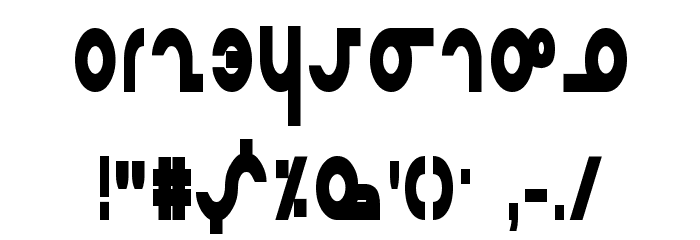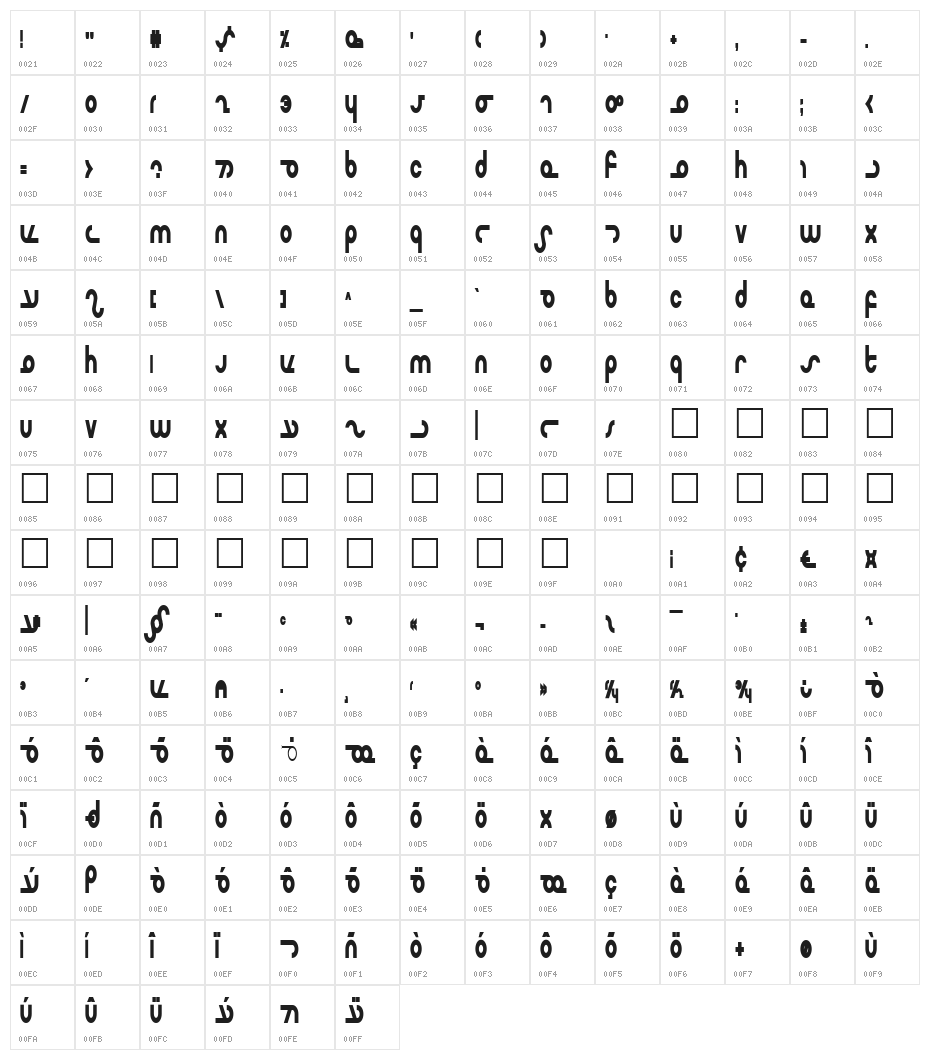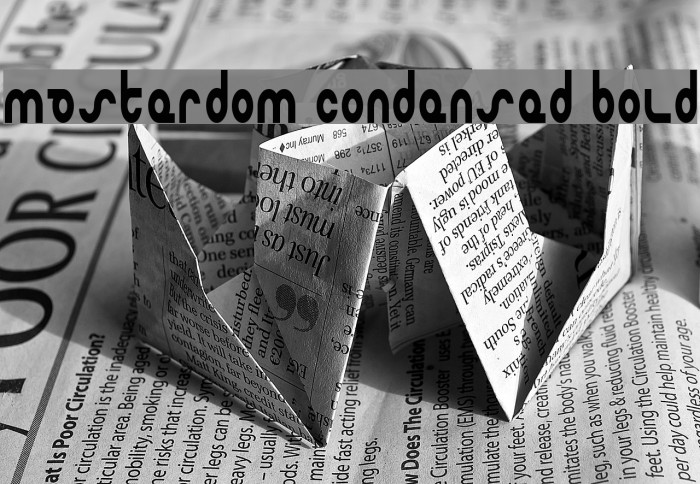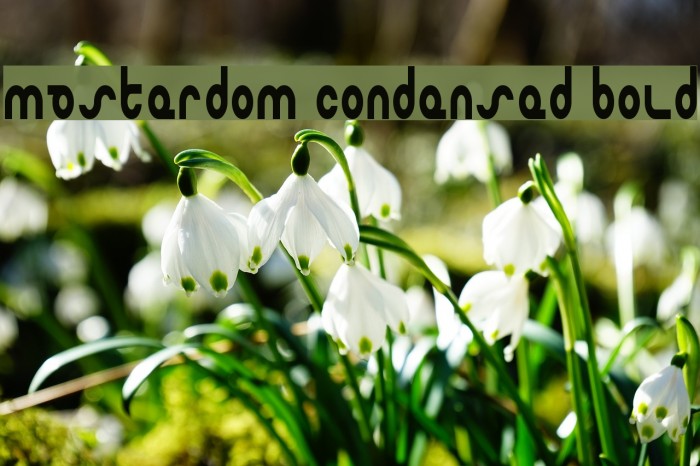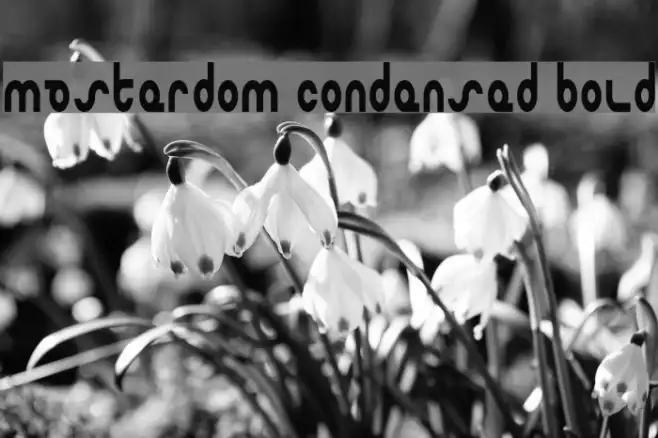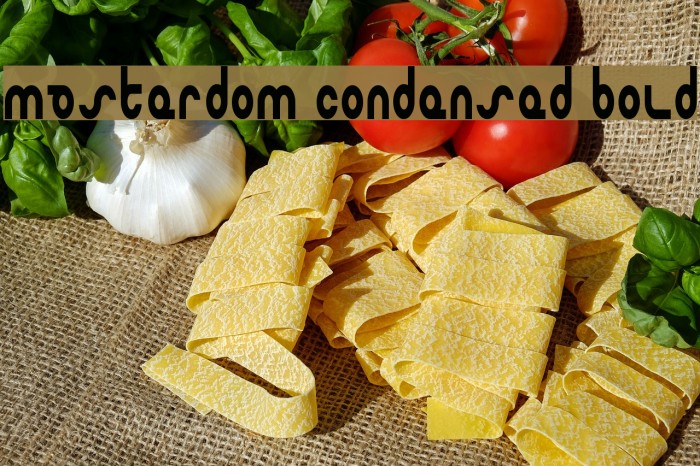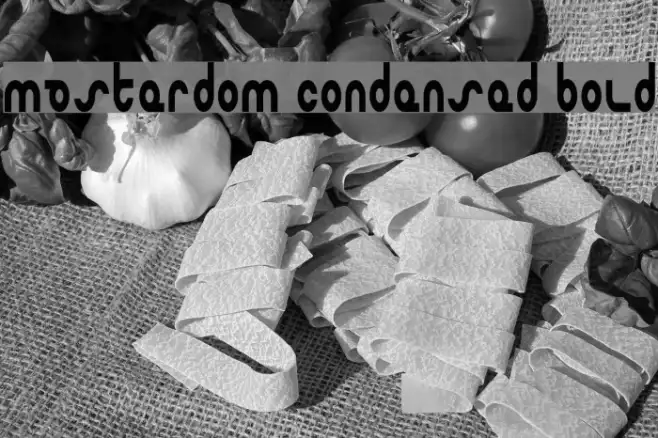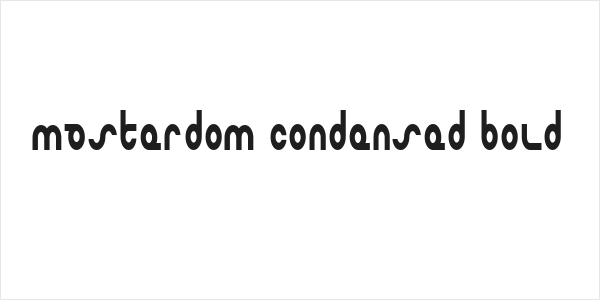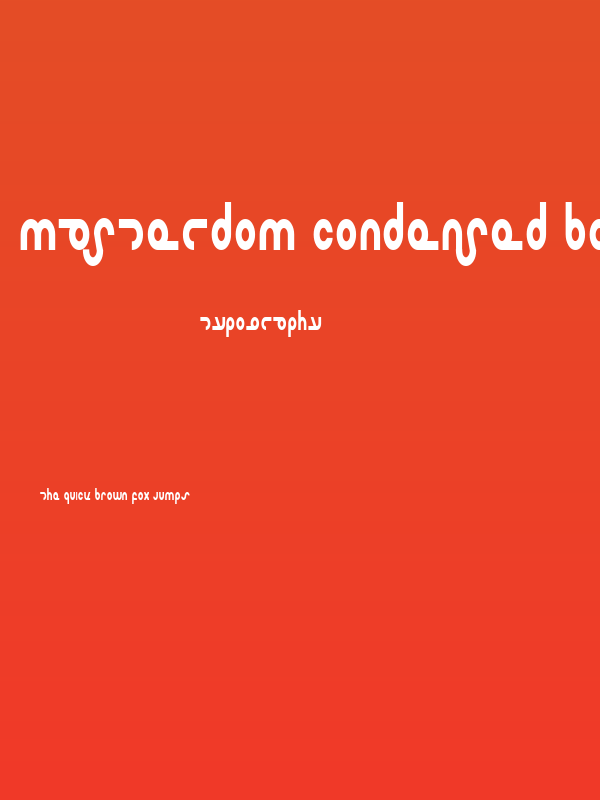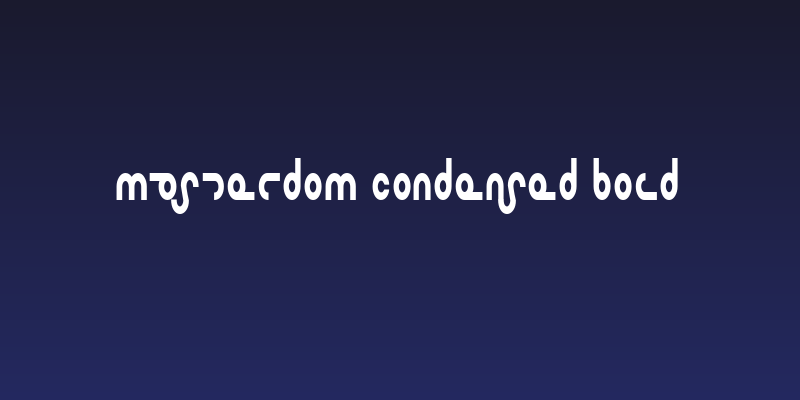
Masterdom Condensed Bold Font
Masterdom Condensed Bold Description
This font features a bold and condensed style with a modern and geometric appearance. The characters are uniquely designed with a consistent stroke width, creating a uniform and cohesive look. The rounded edges and smooth curves give it a friendly and approachable feel, while the condensed nature allows for efficient use of space. The font maintains a high level of legibility despite its stylized design, making it suitable for various applications. The special characters are integrated seamlessly, maintaining the overall aesthetic of the font.